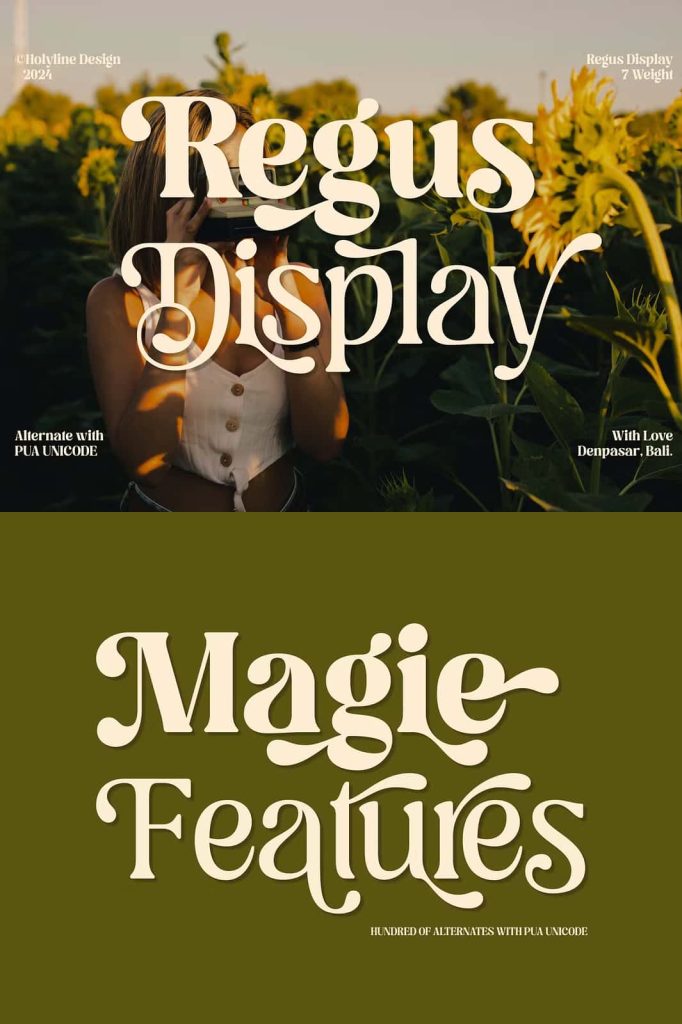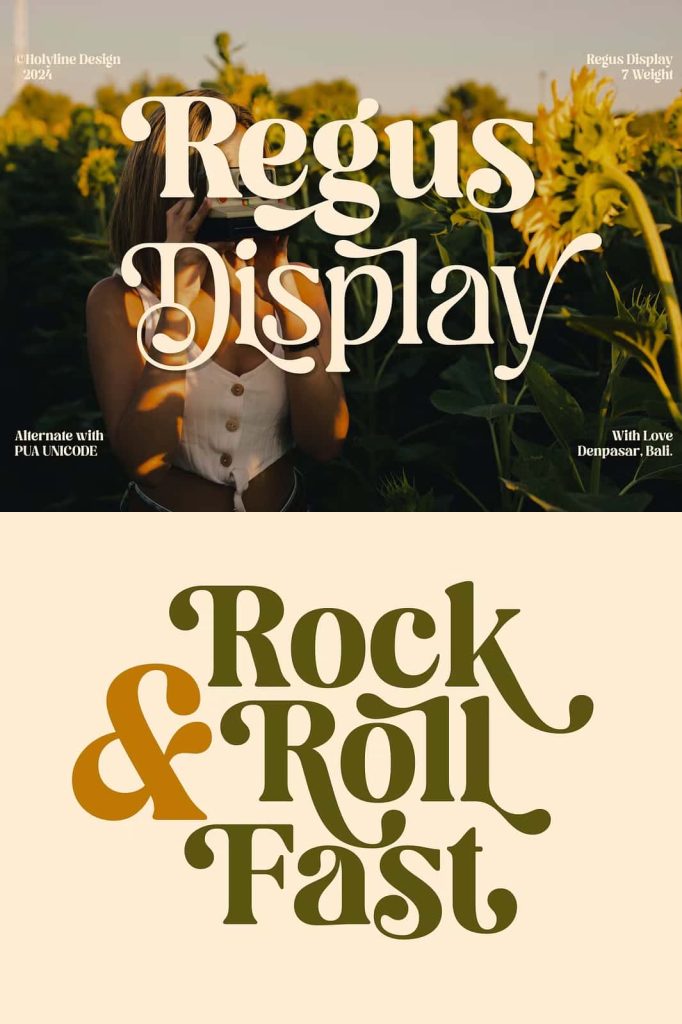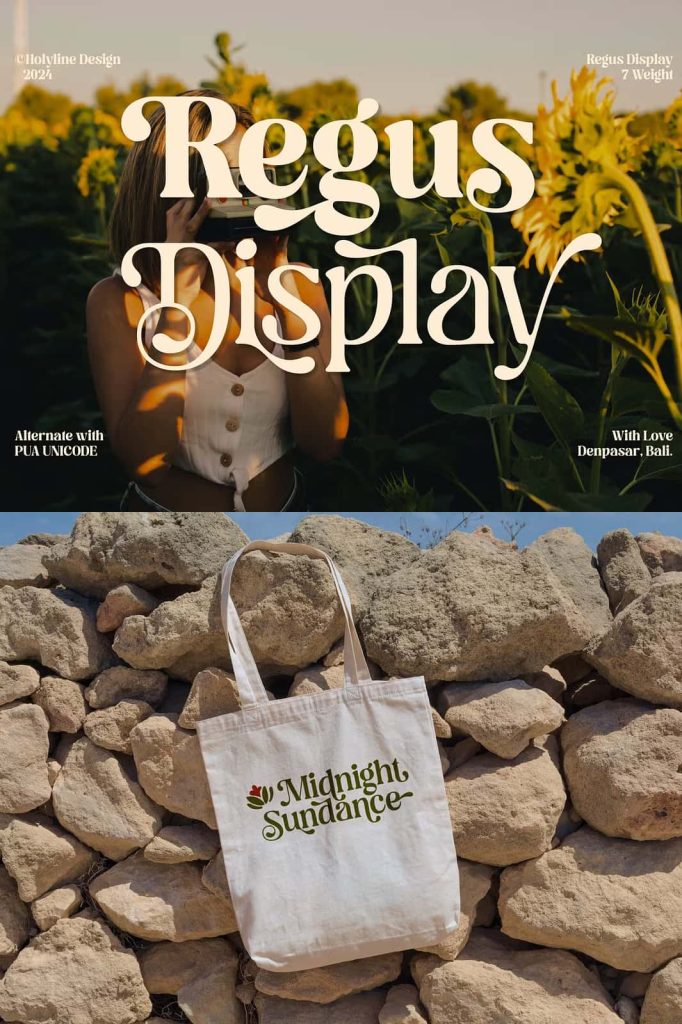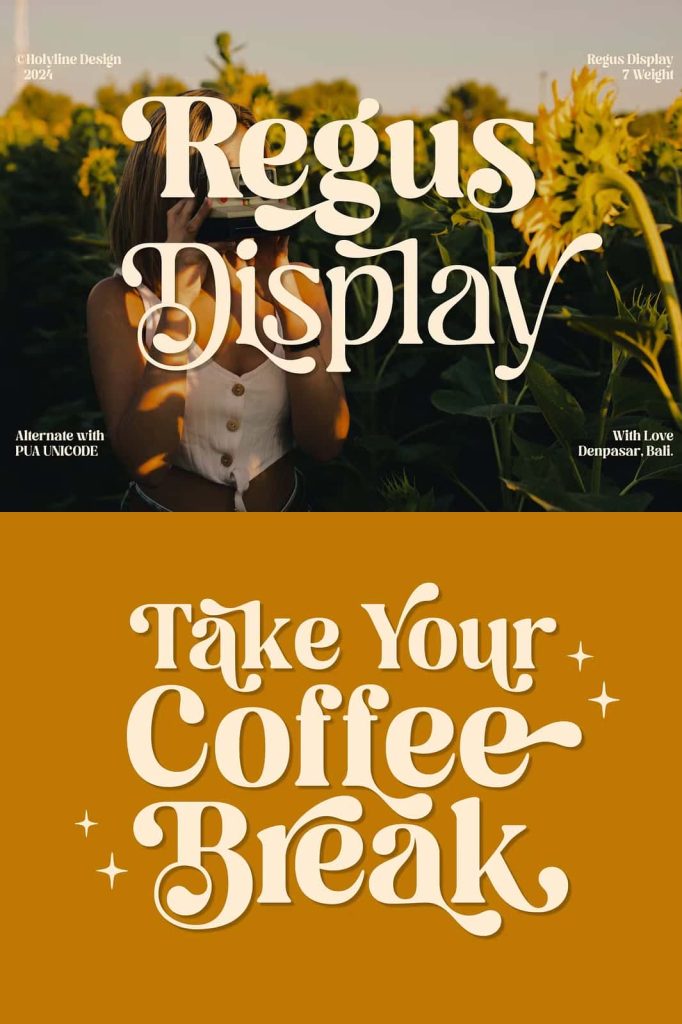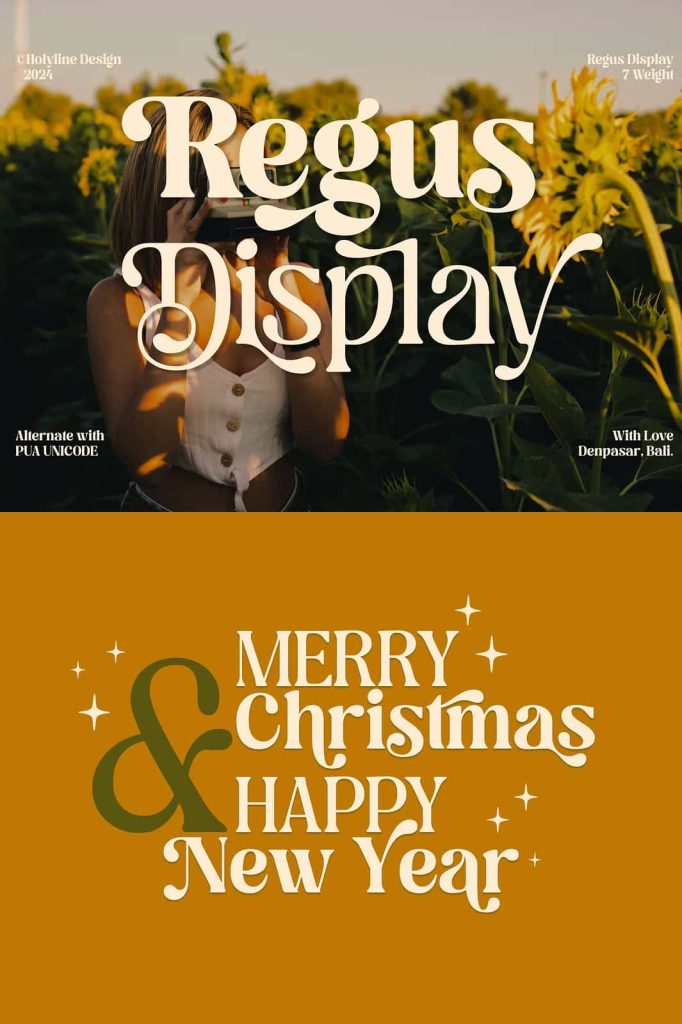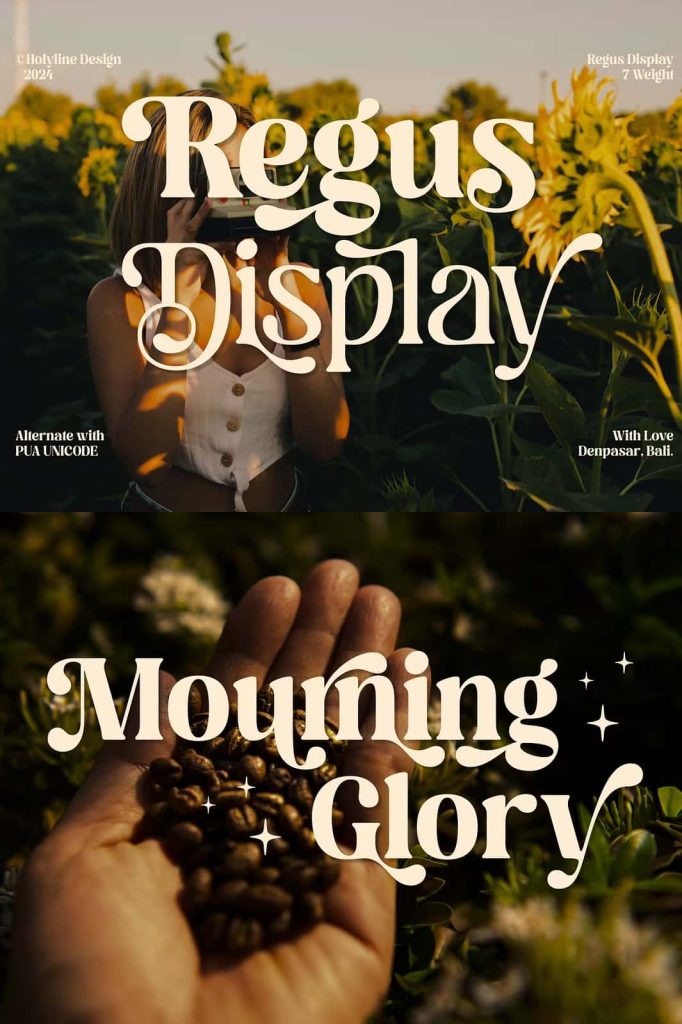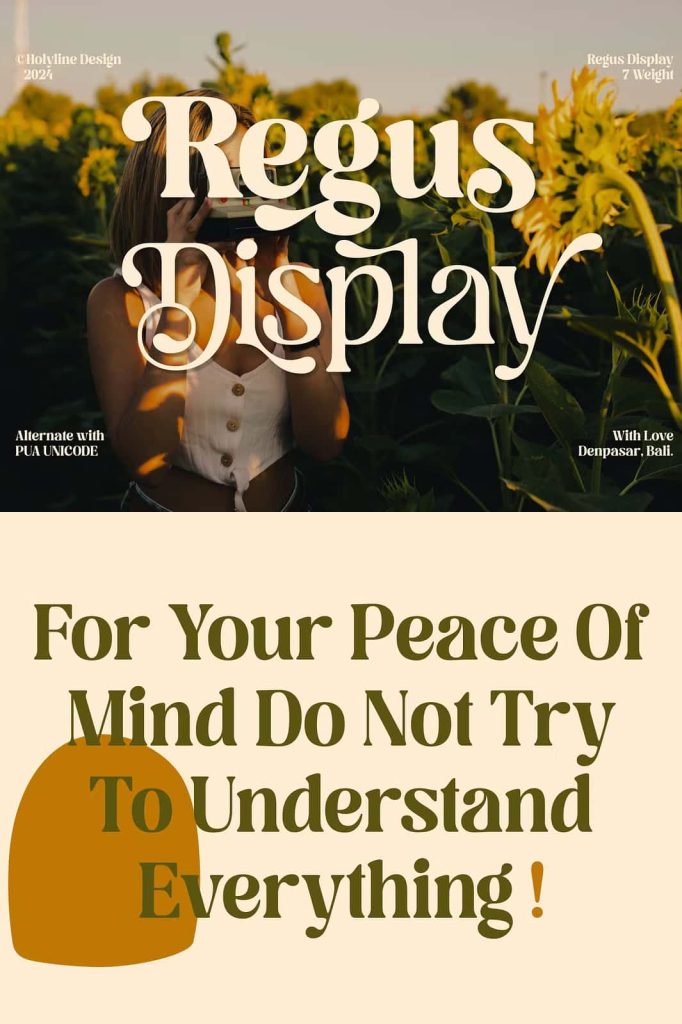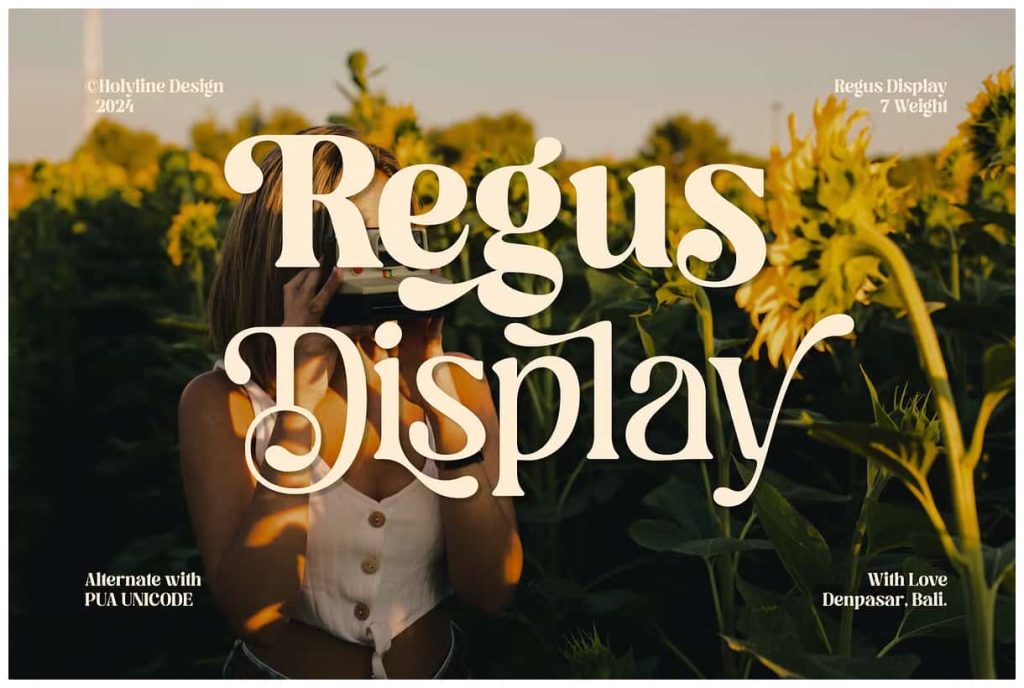
Regus Display – 90’s Serif Family
Regus Display is a lively and elegant serif display font inspired by the charm of vintage typefaces and timeless designs from the ’60s to the ’90s.